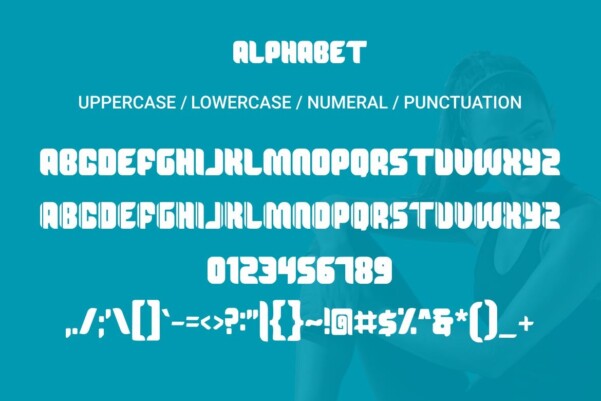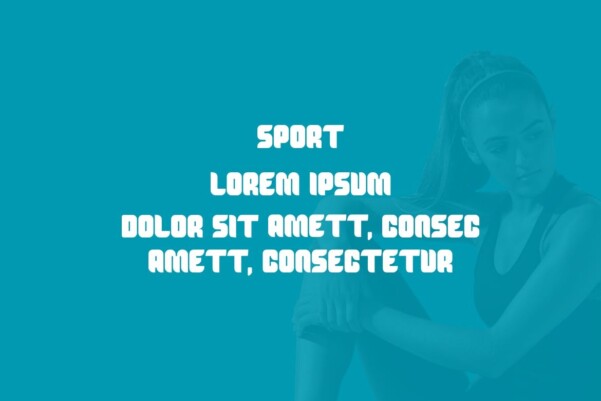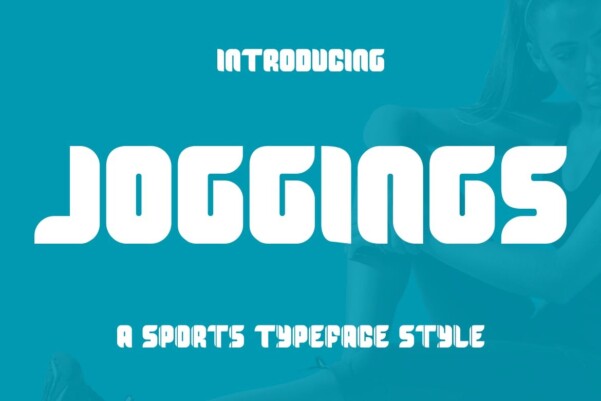
Joggings Font
Joggings Font – A Sport Typeface Bold Font is a modern and authentic font. Perfect for the needs of professionals and product brands, this font is suitable for all branding projects such as quotes, logos, blog headers, posters, ribbons, letters, invitations, stationery , etc. Designed to be versatile and flexible, it can be used on a variety of projects and media. Extraordinary in a variety of contexts